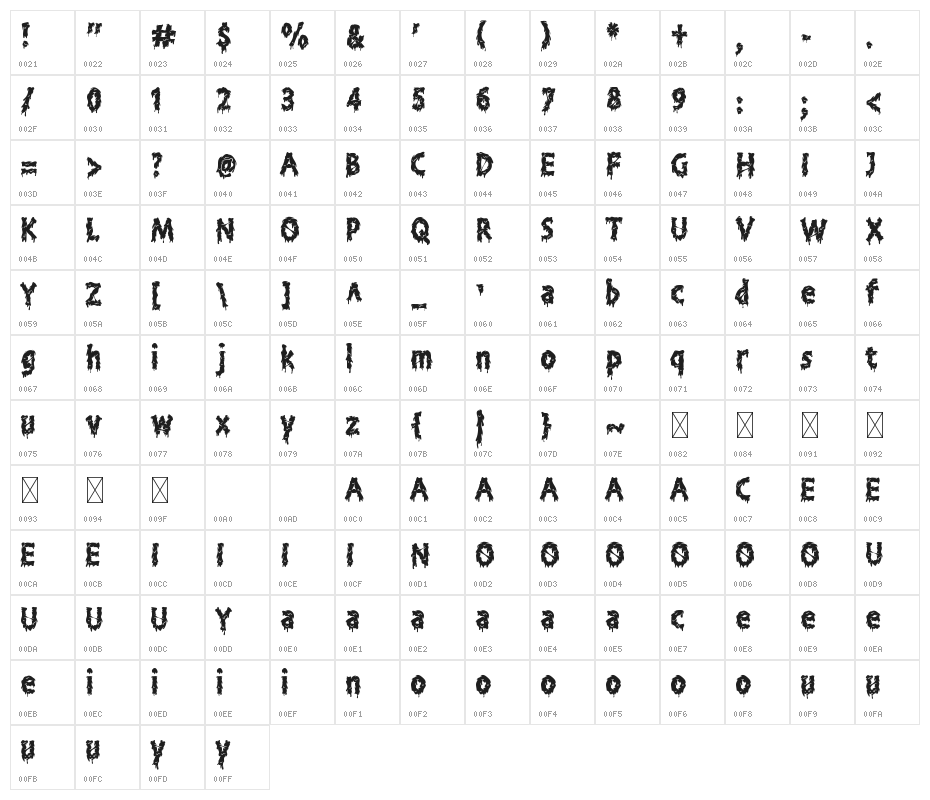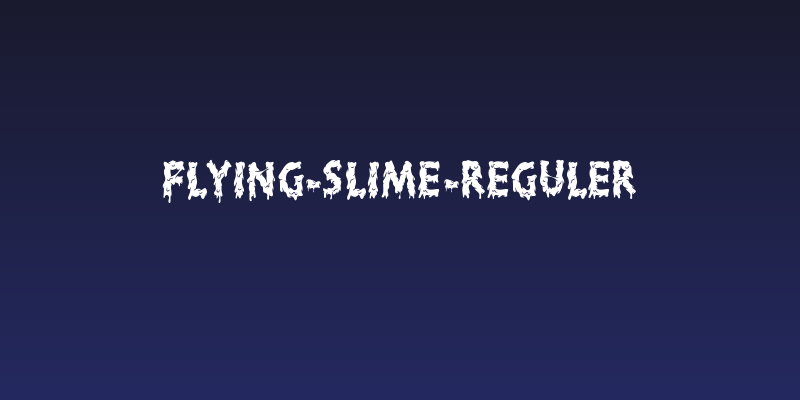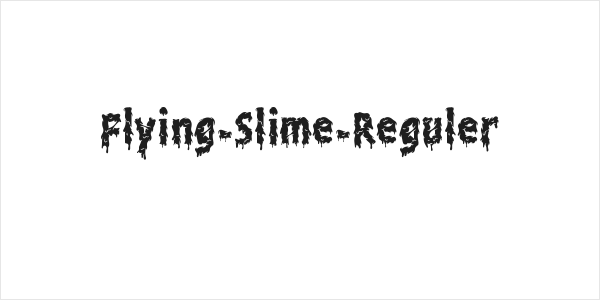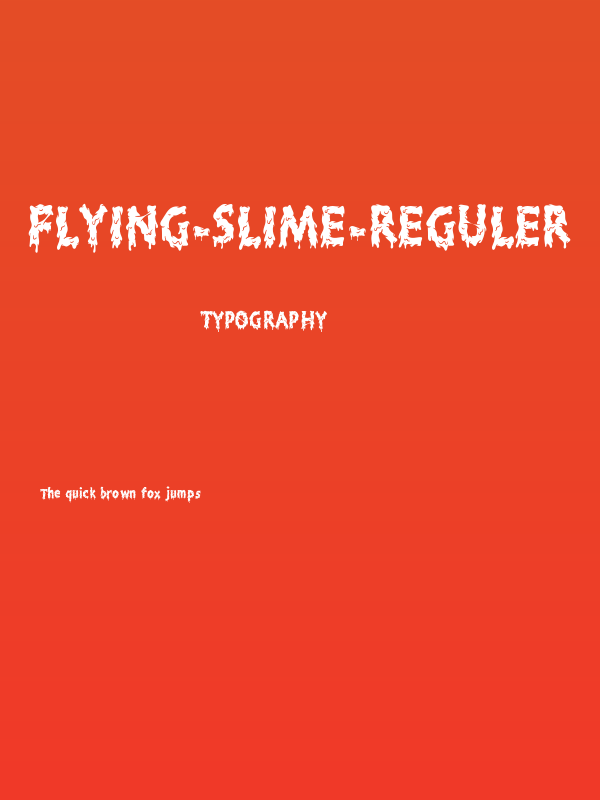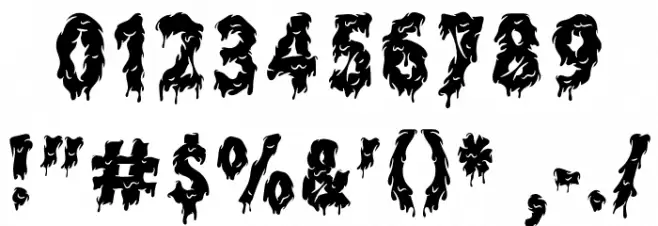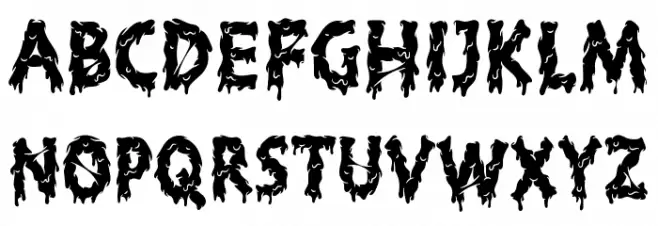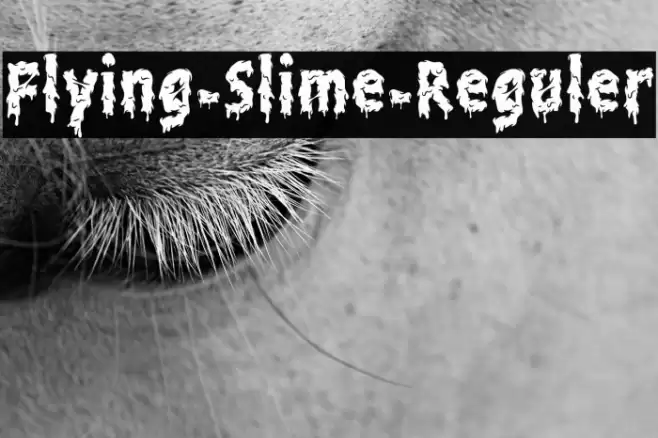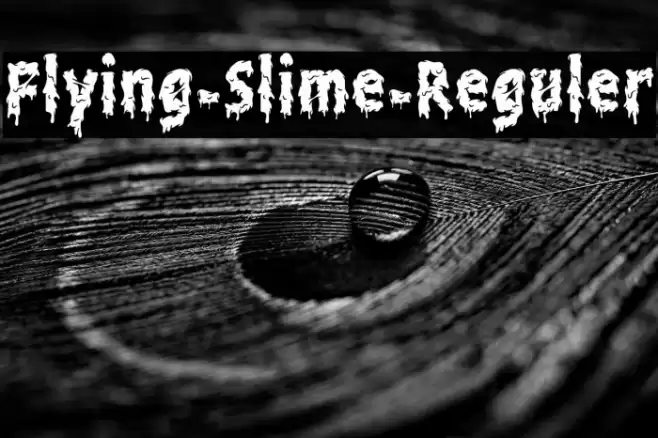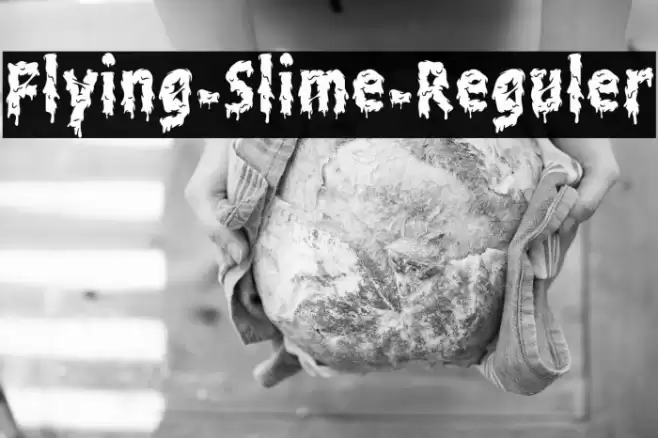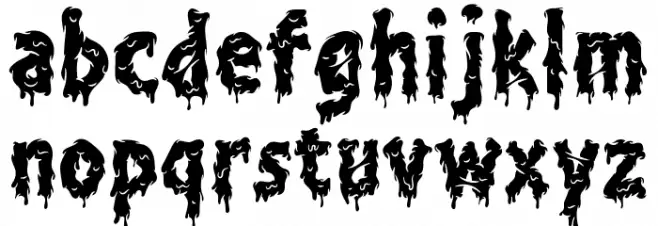
Flying-Slime-Reguler Font
Flying-Slime-Reguler Description
This font features a unique and playful design with characters that appear to be dripping or melting, reminiscent of slime or goo. The letters have an irregular, organic shape that gives them a dynamic and fluid appearance. This style is particularly eye-catching and would be suitable for creative and unconventional projects. The font maintains a consistent thickness throughout, with a medium contrast in stroke thickness. The character spacing is normal, allowing for readability despite the decorative elements. Overall, this font exudes a whimsical and fun vibe, making it ideal for projects that aim to capture attention and convey a sense of playfulness.
| Proposed Projects | Ideal for Halloween-themed designs, children's book covers, playful posters, and creative branding projects. |